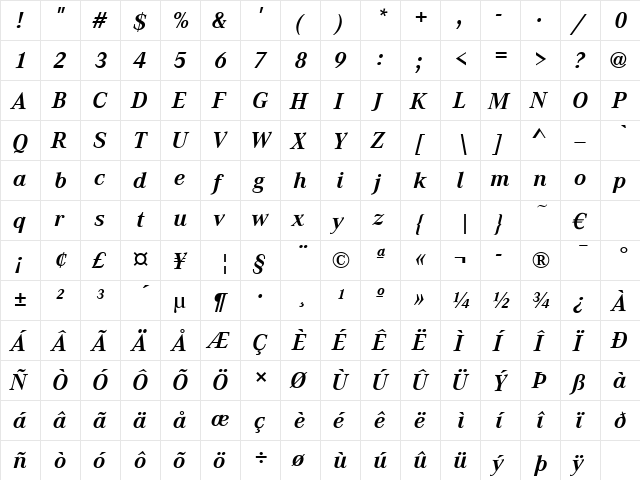
CorpoADem Bold Italic
Design Context for CorpoADem Typeface
CorpoADem is a composed and adaptable typeface that performs quietly and consistently across a wide range of design contexts. The dynamic lean of this cut emphasises speed and emphasis in any layout. Its bold stroke weight gives it real presence on the page.
Pro Tip: Try CorpoADem for annotation and caption copy alongside an upright companion — the contrast in angle creates a dynamic but ordered typographic system.